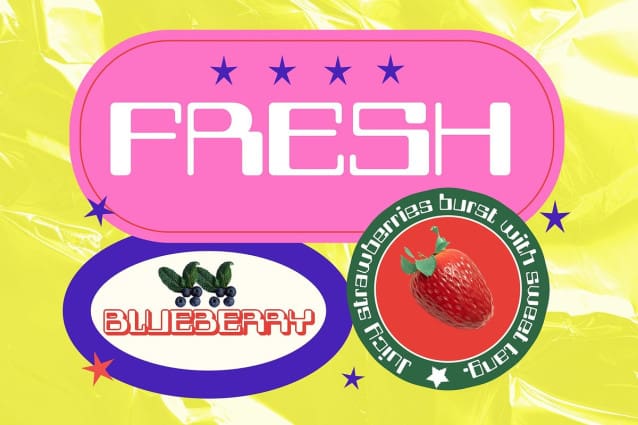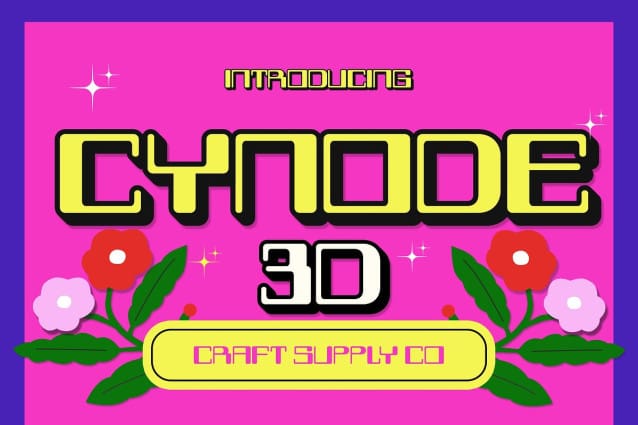
Cynode 3D Font
Cynode 3D Font is a modern display font designed with a tech-inspired, futuristic aesthetic. Featuring sharp, geometric letterforms and sleek lines, this font creates a bold and striking digital presence. The 3D effect applied to each letter adds an additional layer of visual depth, enhancing the font’s dynamic and futuristic look.
Sharp, Geometric Letterforms for a Digital Aesthetic With its sharp, geometric structure, Cynode 3D offers a modern and cutting-edge vibe that aligns perfectly with technology and innovation. The clean, angular shapes of the letters give it a sleek, digital aesthetic ideal for forward-thinking projects, from tech branding to futuristic design concepts. Its boldness ensures it stands out, making a lasting impact in any design.
Dynamic 3D Effect for Visual Depth The addition of a 3D effect adds depth to the already striking design of Cynode 3D, making the letters appear more lively and dynamic. This effect gives the font a sense of movement, as if the letters are emerging or interacting with their environment, making it perfect for projects that want to create energy and excitement. Cynode 3D is a perfect choice for projects within the tech, gaming, and sci-fi industries.